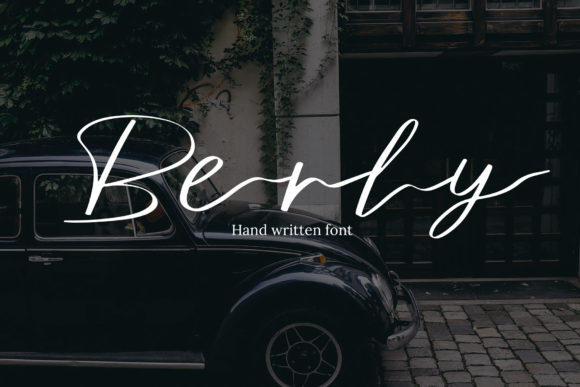
The Berly Font: A Timeless, Handwritten Beauty
I’ll never forget the design project that led me to discover the Berly font. I was working on a wedding invitation suite for a client who wanted something elegant, yet playful. As I scrolled through my font library, nothing seemed quite right – until I stumbled upon Berly. Its unique, flowing script immediately caught my eye, and I knew I had found the perfect fit. In this article, I’ll share my love for the Berly font, its features, and how to make the most of it in your designs.
So, what makes Berly so special? Here are a few things I love:
- ✨ Unique and timeless feel: Berly’s handwritten style has a certain charm that’s hard to find in more traditional fonts.
- ✅ Highly legible: Despite its flowing nature, Berly remains easy to read, even at smaller sizes.
- 💕 Versatile: From wedding invitations to social media posts, Berly adapts to any design style.
Of course, no font is perfect. Here are a few quirks to keep in mind:
- 🤔 Limited use in very formal designs: Berly’s playful nature might not be suitable for corporate or formal projects.
- ⚠️ Occasional kerning issues: As with any font, you might need to adjust kerning for optimal results.
The Story Behind Berly
Berly was designed with the intention of creating a timeless, handwritten font that would evoke a sense of relaxation and elegance. Inspired by classic scripts and modern calligraphy, Berly’s creator aimed to craft a font that would be both versatile and beautiful.
| Is Berly suitable for body text? | While Berly is highly legible, it’s best used for headlines, titles, or short paragraphs. For longer body text, consider a more traditional font. |
With its unique feel and versatility, Berly is sure to become a favorite in your font library. Whether you’re designing wedding invitations, social media posts, or stationery, Berly’s timeless beauty will elevate your projects to the next level.